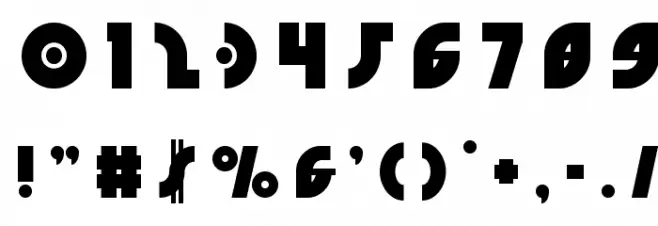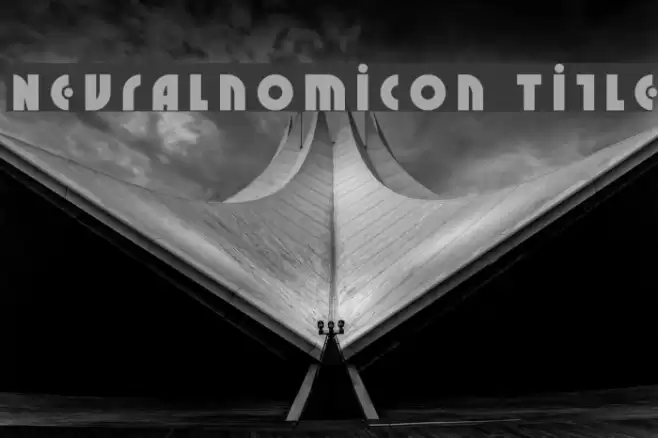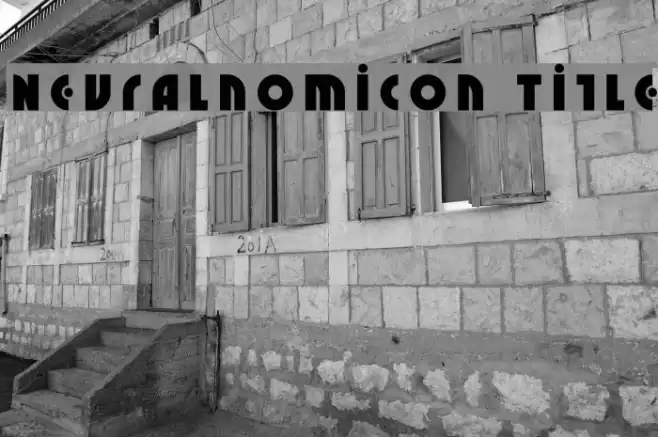
Neuralnomicon Title Font
Neuralnomicon Title Description
This font features a bold and geometric design with a futuristic flair. The characters are constructed with strong, solid lines and circular cutouts, giving it a unique and modern appearance. The uppercase and lowercase letters maintain a consistent style, with rounded edges and distinct shapes that enhance readability while adding a decorative touch. The numerals and special characters follow the same design principles, ensuring uniformity across all glyphs. This font's distinctive style makes it ideal for projects that require a bold and eye-catching typeface.
A bold, geometric font with a futuristic and decorative style from Uncategorized fonts.
- Proposed Projects: Ideal for sci-fi themed projects, branding, posters, and digital artwork.
- Overall Style: Futuristic, Decorative